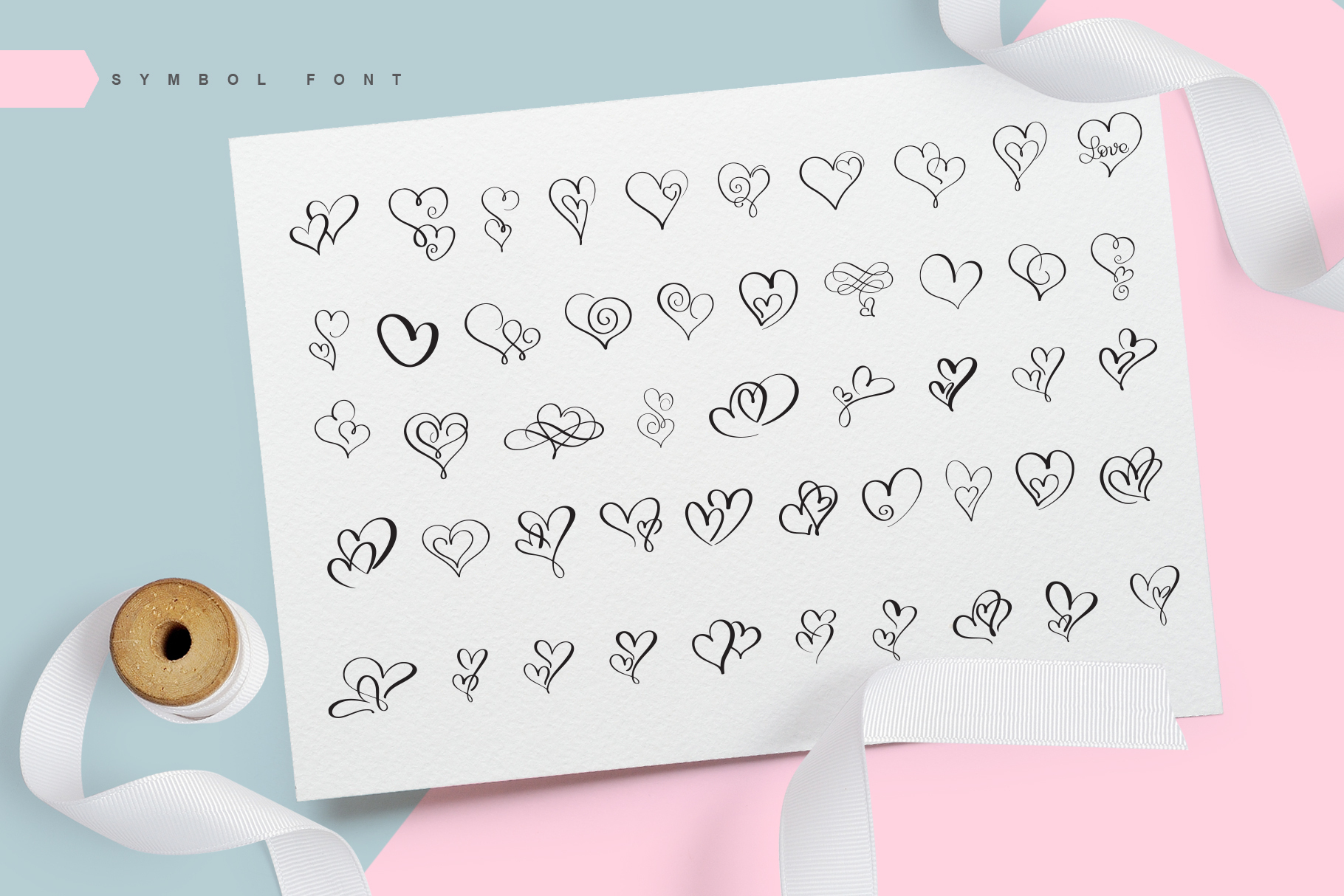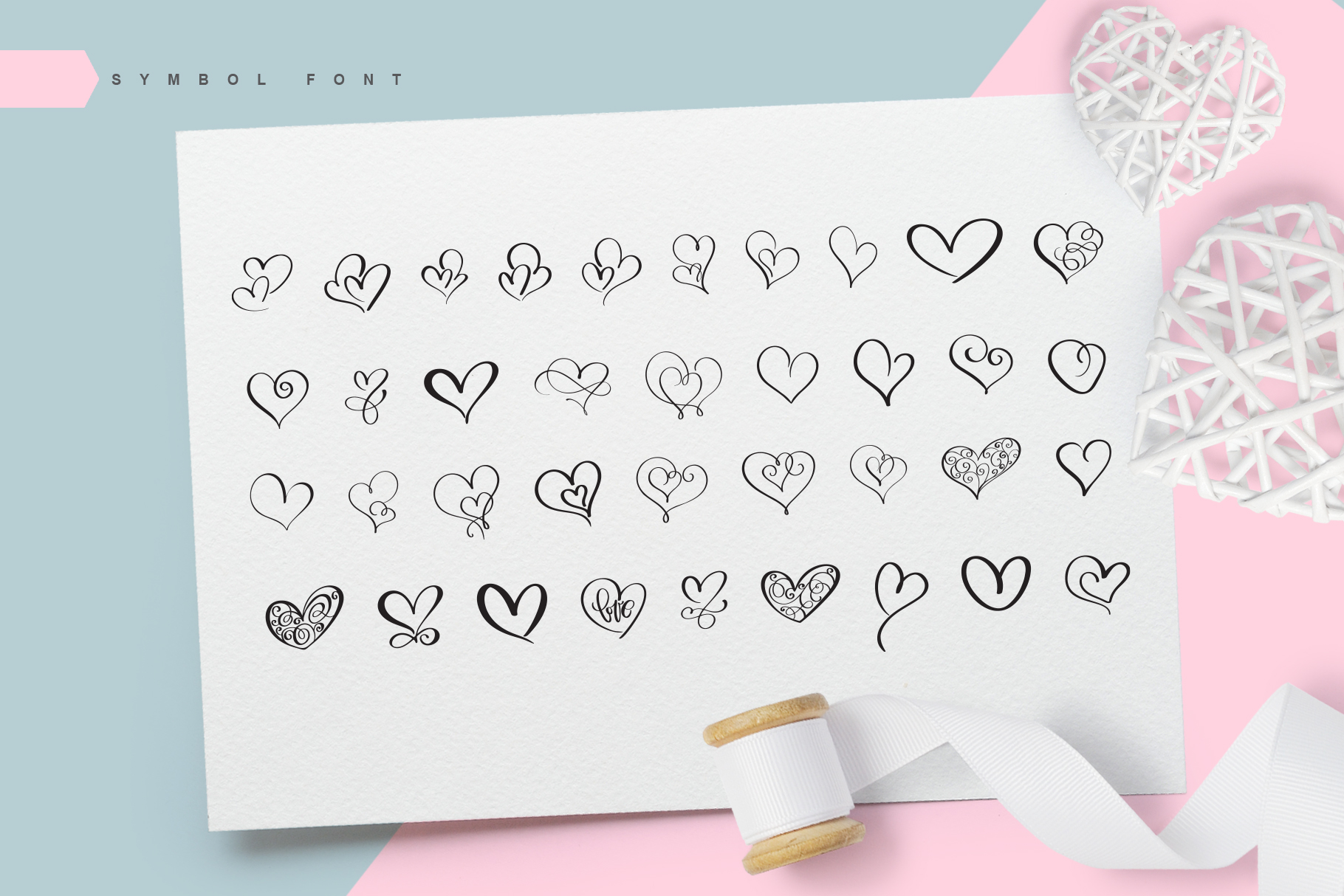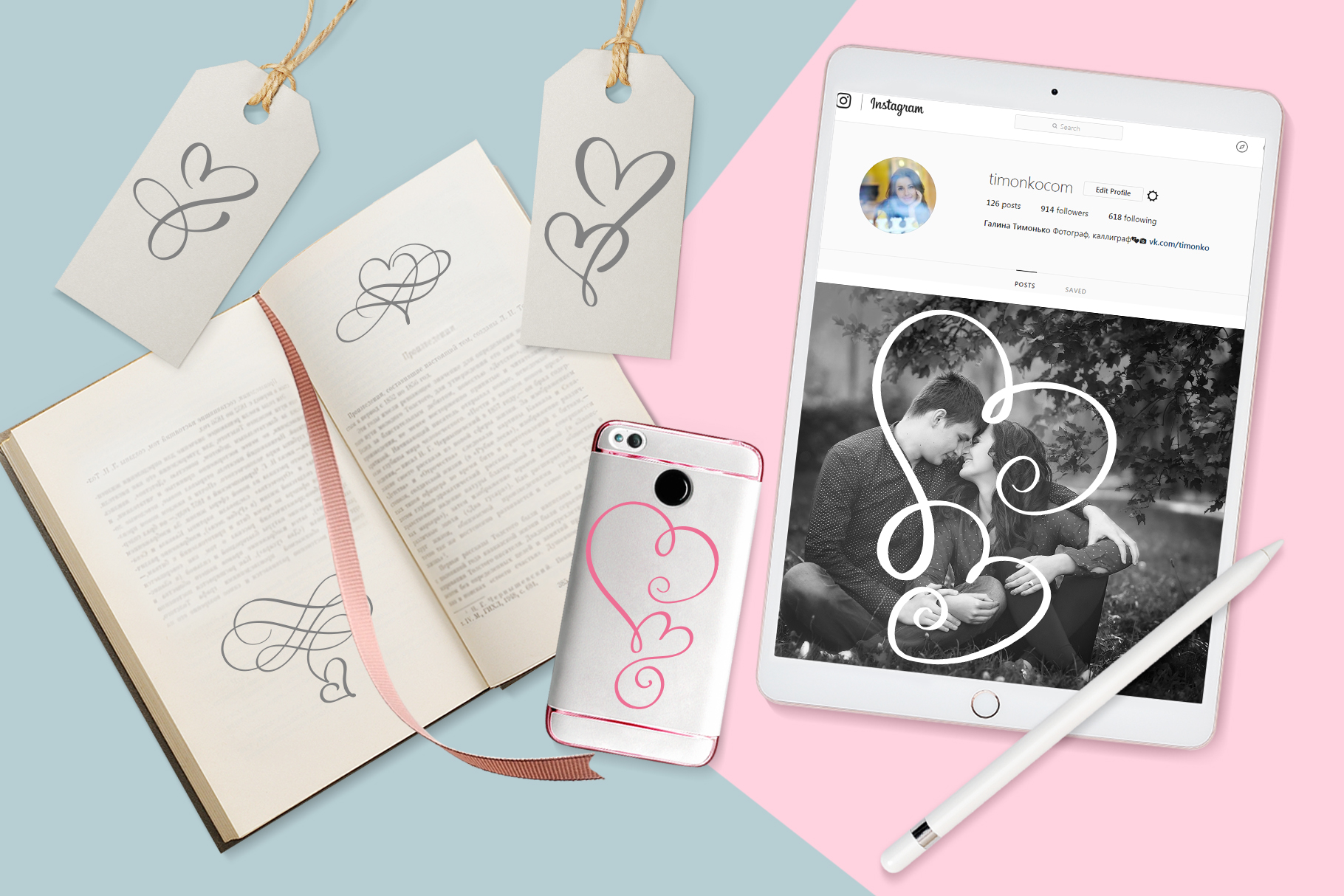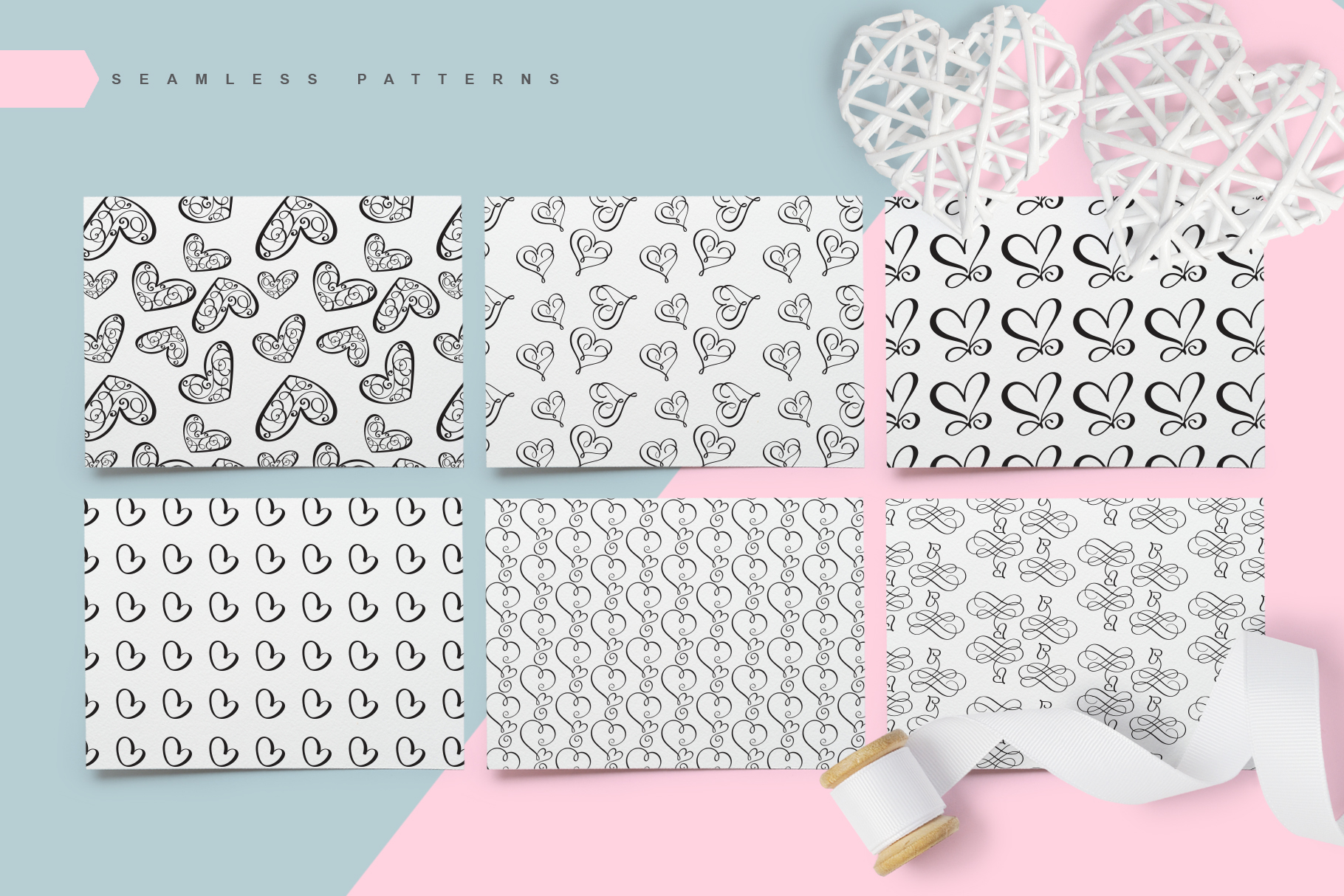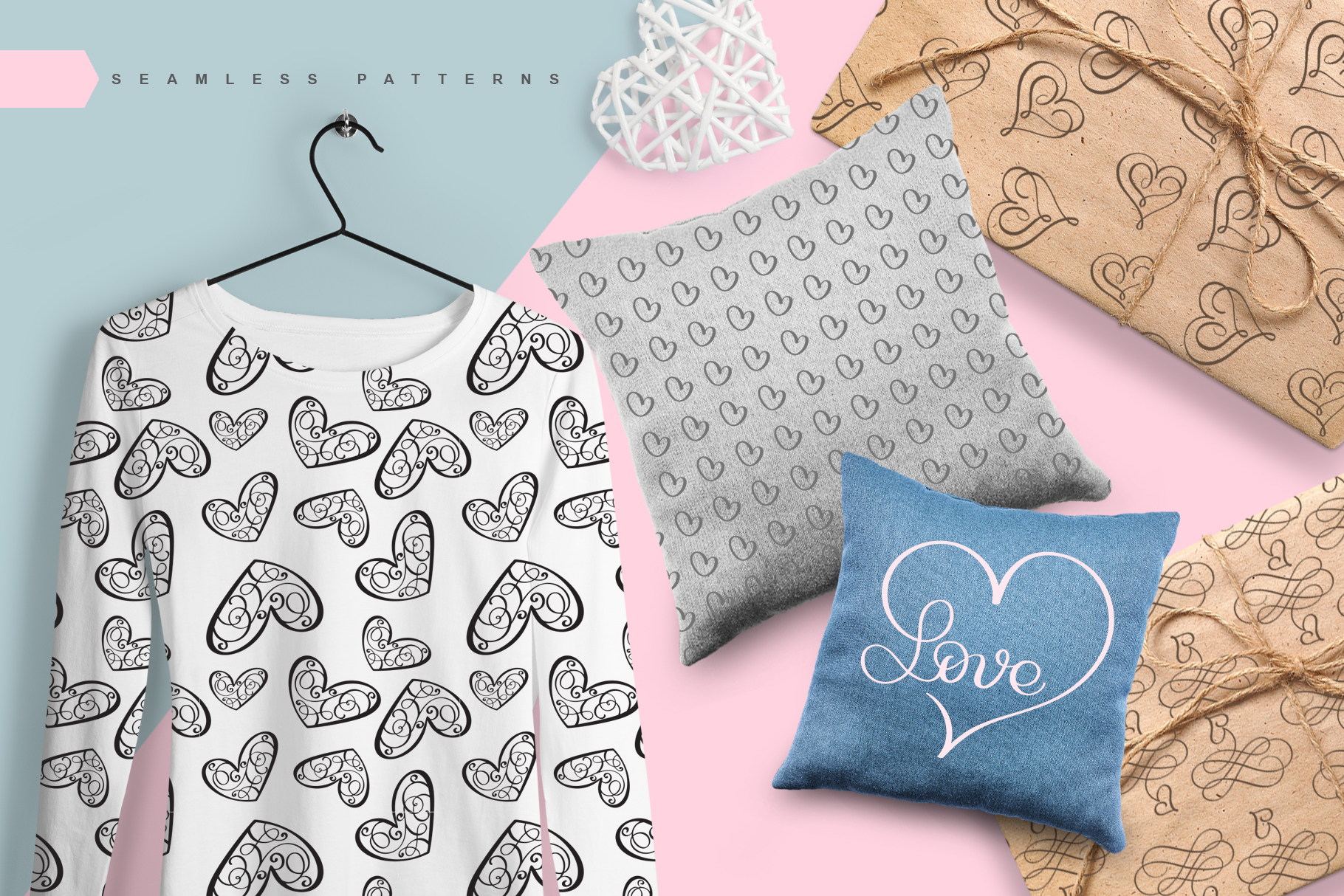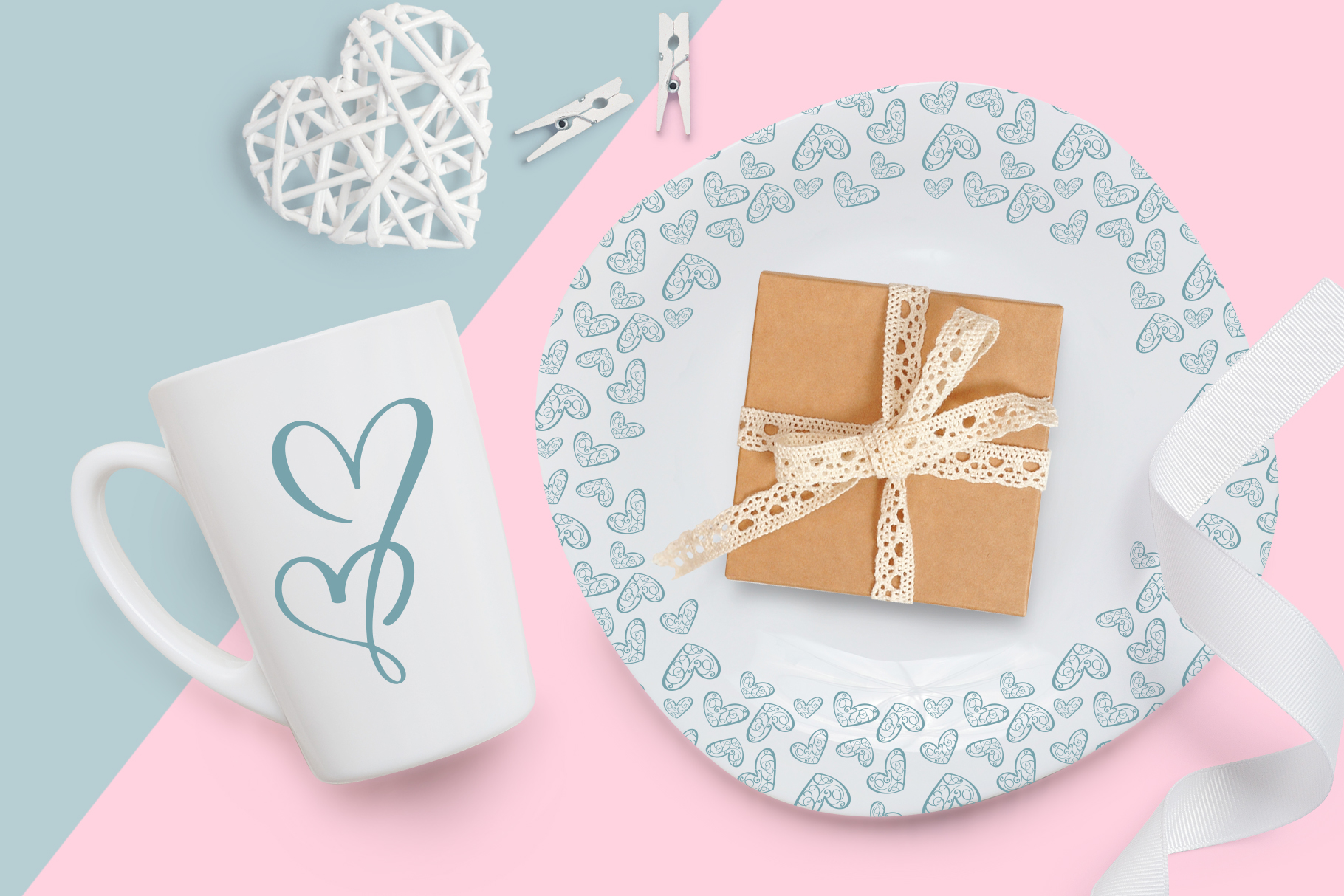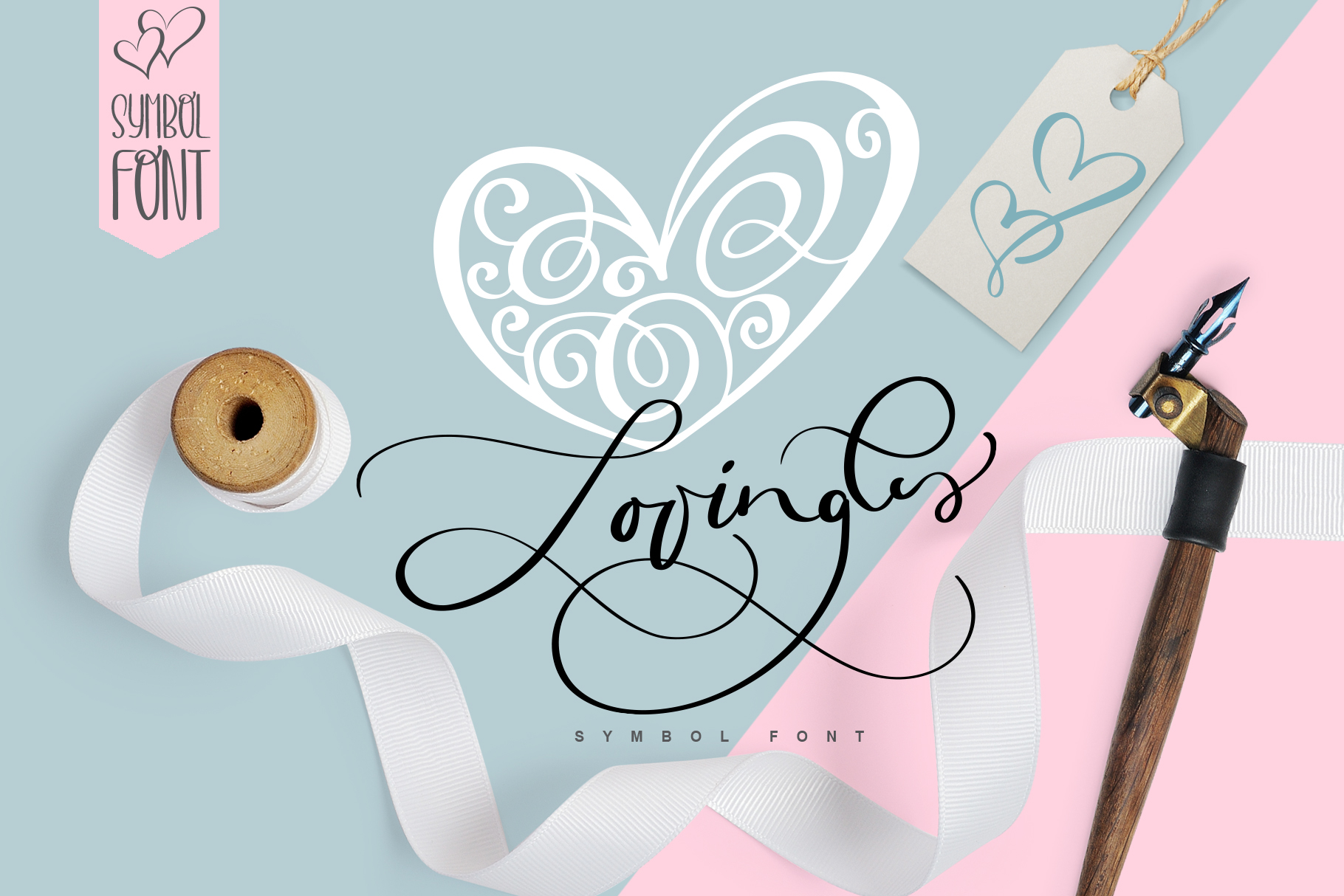
Lovingly Font
About Lovingly Font
Introducing Lovingly Ornamental Font Set: Infuse Your Designs with Charming Romance!
If you’re seeking to add a touch of romance and whimsy to your designs, look no further than the Lovingly Ornamental Font Set. This delightful dingbat collection is designed to bring a sense of lightness and dreaminess to your projects, making it perfect for creating a holiday mood or capturing the essence of love and affection.
The Lovingly Ornamental Font Set features a charming assortment of ornamental elements, each carefully crafted to evoke a sense of romance and enchantment. From delicate hearts and swirls to intricate floral motifs, these dingbats serve as the perfect anchors for your designs, infusing them with a touch of elegance and allure.
Whether you’re working on Valentine’s Day cards, wedding invitations, or any other project that calls for a romantic touch, the Lovingly Ornamental Font Set provides an array of options to suit your needs. Each dingbat is thoughtfully designed to evoke feelings of love and tenderness, helping you create designs that resonate with your audience on a heartfelt level.
One of the standout features of the Lovingly Ornamental Font Set is its versatility. These dingbats can be used as standalone elements or combined to create intricate and whimsical compositions. With a light and airy aesthetic, they effortlessly enhance the overall visual appeal of your designs, adding a touch of sophistication and playfulness.
The Lovingly Ornamental Font Set is not only visually appealing but also easy to use. Simply select the desired dingbat from the font and incorporate it into your design. Whether you’re embellishing typography, framing text, or creating decorative borders, these dingbats offer a seamless integration that saves you time and effort while elevating your designs.
Embrace the holiday spirit or express your affectionate sentiments with the Lovingly Ornamental Font Set. This charming collection captures the essence of romance and adds a touch of magic to your designs. Let your creativity flourish as you explore the possibilities and create captivating visuals that tug at the heartstrings of your audience.
So, immerse yourself in the world of romance and whimsy with the Lovingly Ornamental Font Set. Allow these charming dingbats to anchor your designs in a holiday mood or infuse them with a dreamy elegance that leaves a lasting impression. Let love be the guiding force as you embark on your creative journey with Lovingly Ornamental!